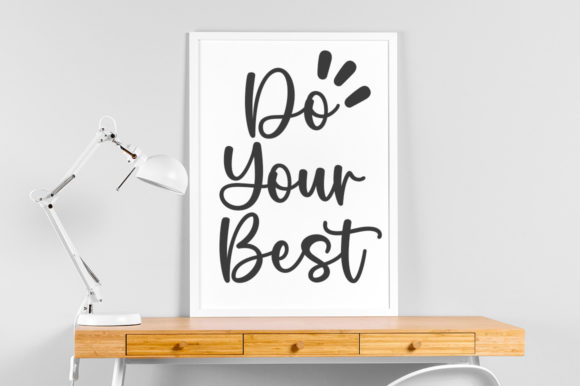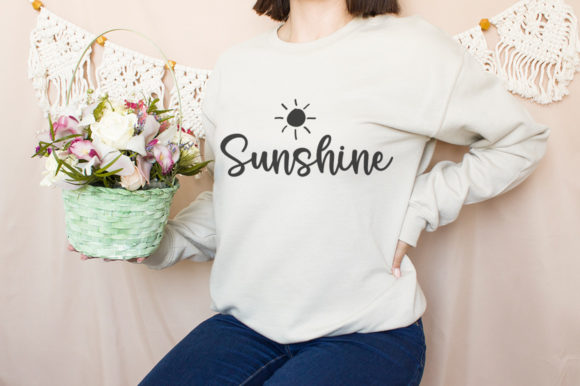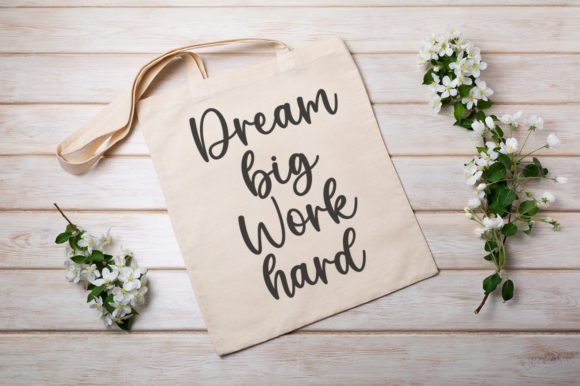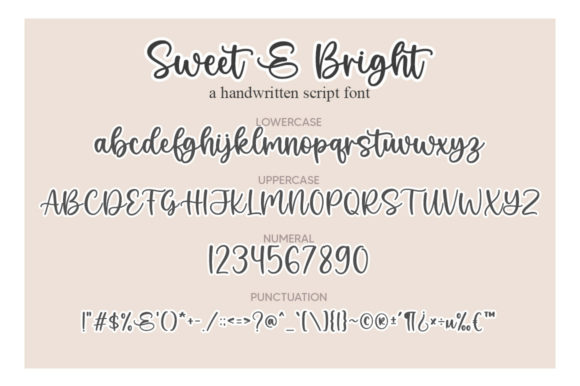
About Sweet & Bright Font
Sweet & Bright is a delicate, elegant, and flowing handwritten font. It has beautiful and well-balanced characters and as a result, it matches a wide pool of designs. Add it to your most creative ideas, and notice how it makes them come alive!